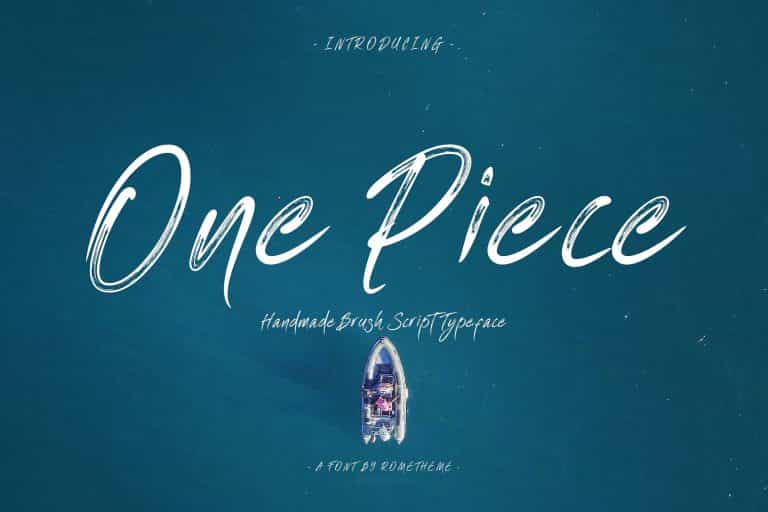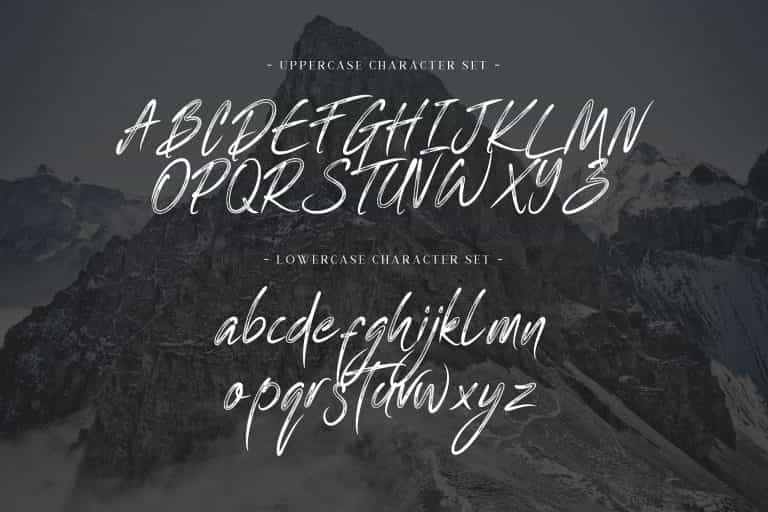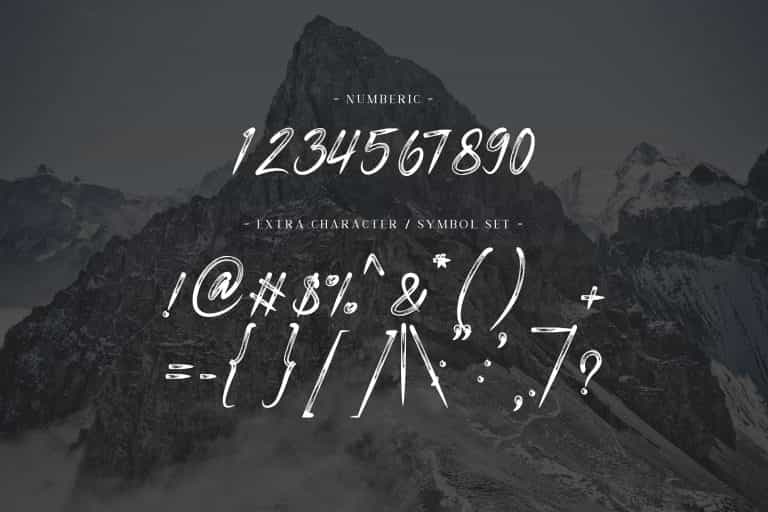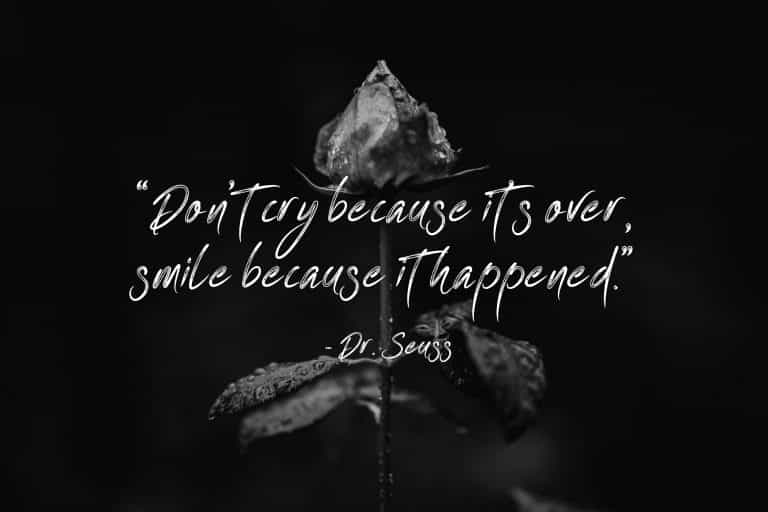
Introducing One Piece Font! One Piece is a brush script typeface. It’s an elegance, a classiness and a beauty for all your branding project. One Piece font styles is the best choice for your branding project, fashion typographic designs, or gothic, etc. as well as for the poster, brochure, advertising, fashion, social media post, etc.